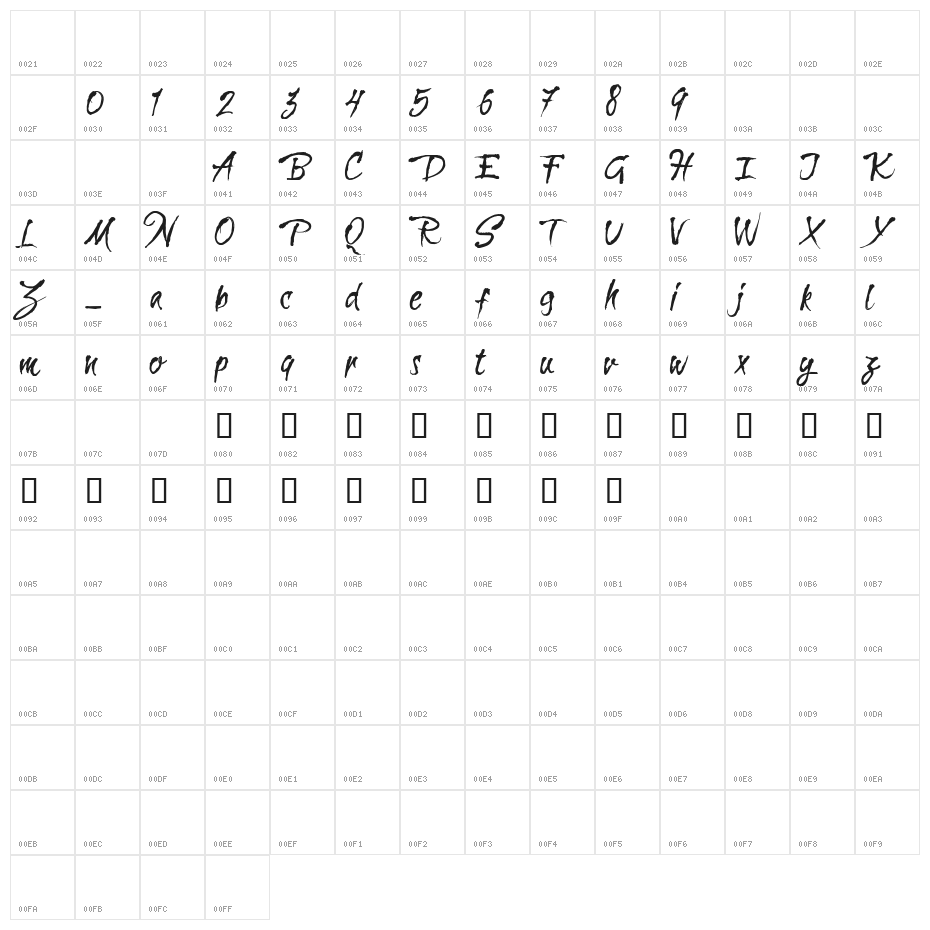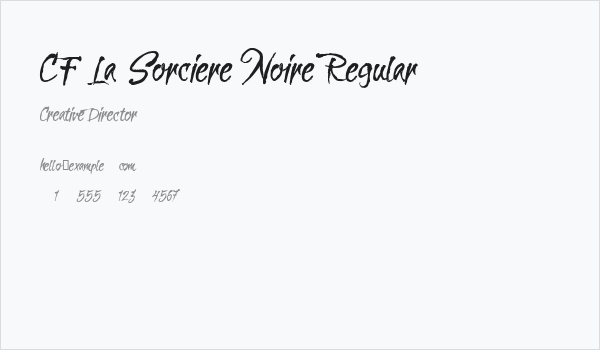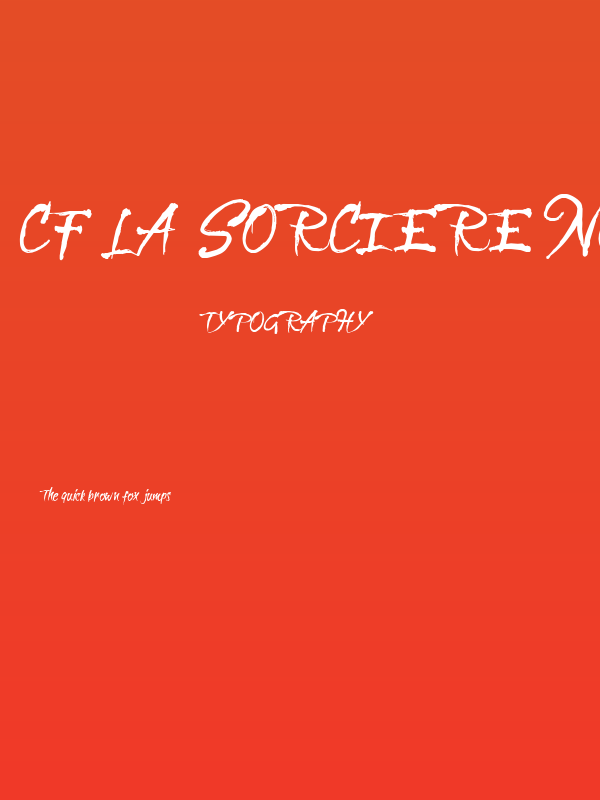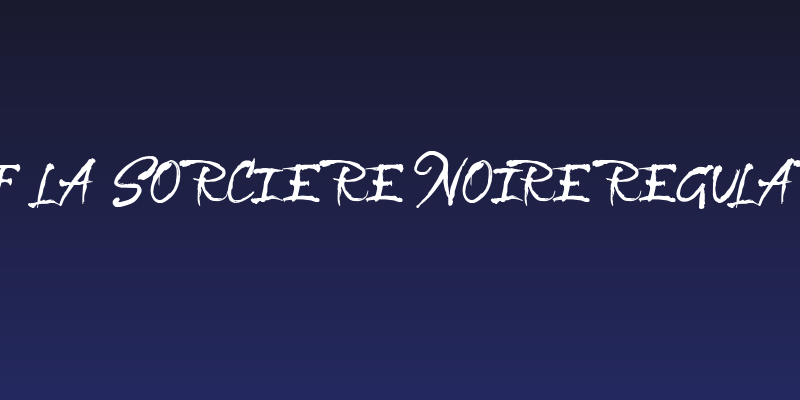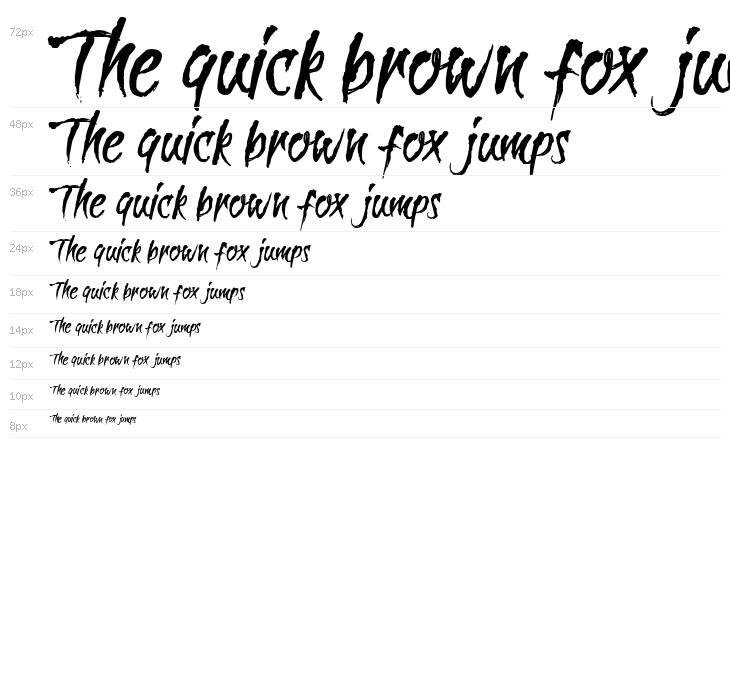
CF La Sorciere Noire Regular Font
CF La Sorciere Noire Regular Description
This font features a dramatic and expressive style, characterized by its brush-like strokes and dynamic flow. The letters exhibit a sense of movement and energy, with varying thicknesses that create a striking visual impact. The uppercase and lowercase letters maintain a consistent aesthetic, with sharp angles and fluid curves that give the font a unique personality. The numbers and special characters are crafted with the same attention to detail, ensuring a cohesive look across all elements. This font's distinctive appearance makes it suitable for projects that require a bold and artistic touch.
| Proposed Projects | Ideal for creative projects such as posters, album covers, branding, and any design work that seeks to convey a sense of energy and individuality. |